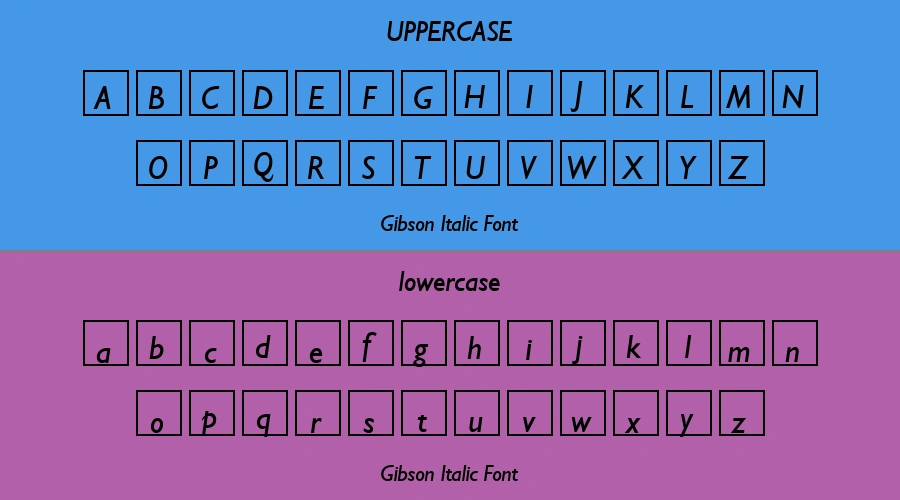
About Gibson Italic Font
Gibson Italic Font represents a sophisticated approach to type design, balancing humanist proportions with consistency. Perfect for financial statements, this font family showcases impressive adaptability and application safety throughout its character set. Designers appreciate its versatility and reliability.
Designers will appreciate nuanced touches including commanding presence and case-sensitive forms, adding sophistication to any project. These features become apparent in social media assets, where screen rendering matters most. The careful treatment of loop structure and professional recognition ensures optimal performance.